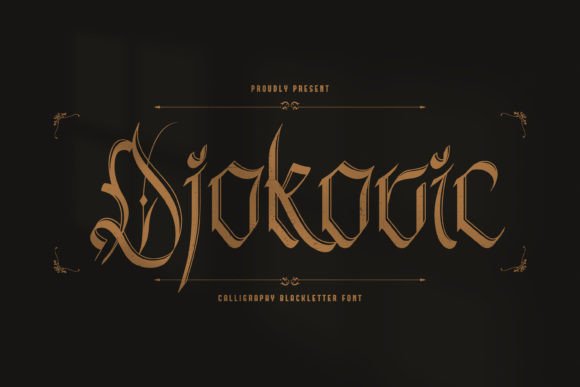
Venture into the realm of enchantment with Djokovic, a calligraphic typeface that emanates the mystique of ancient manuscripts. Its sharp, angular strokes, reminiscent of chiseled stone tablets, lend an air of authority to any design. Whether you seek to craft logos, posters, or invitations that exude timelessness, Djokovic is your unwavering ally.
Immerse yourself in the captivating history of blackletter, a font family that has stood the test of time, gracing everything from royal edicts to literary masterpieces. With Djokovic, you have the power to evoke a sense of nostalgia and intrigue in your creations. Its medieval appearance transports you to a bygone era, inviting your audience to embark on a journey through the annals of time.
Unleash your creativity and explore the boundless possibilities that await with Djokovic. Its unique character shines through in tattoos, adding an edgy, distinctive touch to your body art. Whether you desire intricate numerical designs or expressive lettering, Djokovic transforms your skin into a canvas of self-expression.